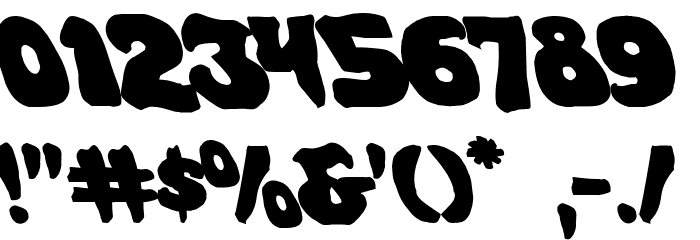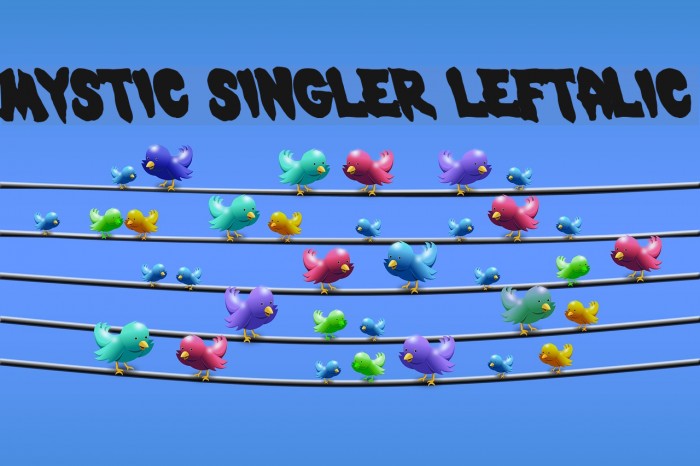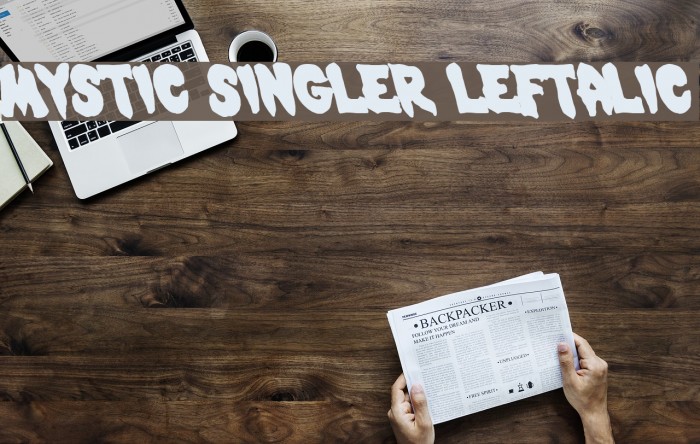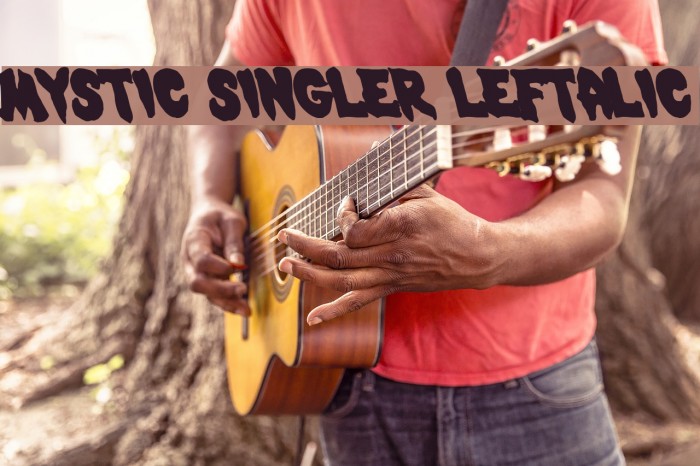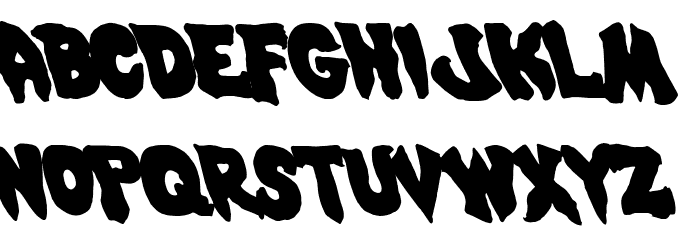
Mystic Singler Leftalic Font
This font features a bold and dynamic style with a strong, expressive character. The letters are heavily stylized with a playful, almost cartoonish flair, making them stand out with their thick strokes and irregular shapes. The design is reminiscent of graffiti or street art, with a sense of movement and energy. The uppercase and lowercase letters maintain a consistent weight, and the numbers and special characters follow the same bold and lively aesthetic. This font is ideal for projects that require a touch of creativity and boldness.
A bold, dynamic font with a graffiti-inspired style.
• Proposed Projects: Perfect for posters, album covers, streetwear branding, and creative advertising campaigns.
• Category: Decorative/Display
• Bold: Yes
• Italic: No
• Weight: Bold
• Width: Normal
• Character Spacing: Normal
• Contrast: Low
• Overall Style: Decorative
• Use Case: Headlines, Logos